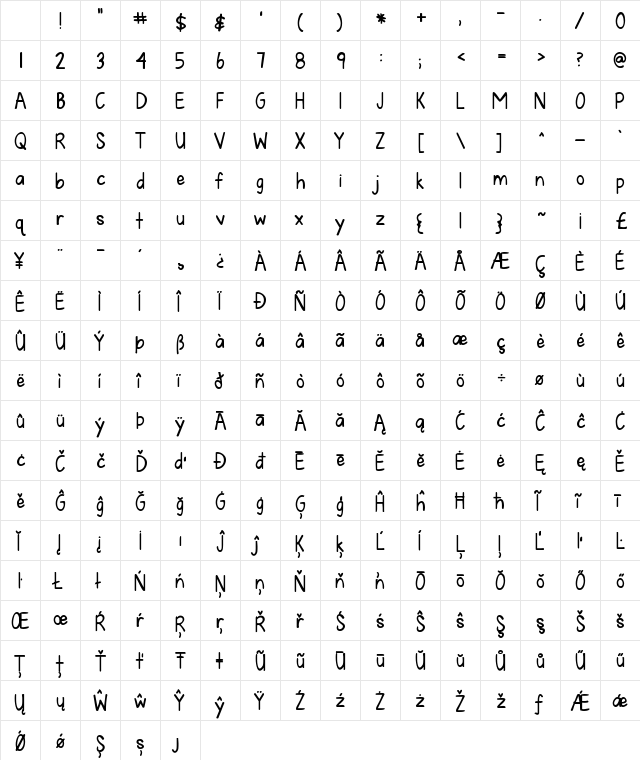
Complete KG Fall For You Bold glyph index. Displaying only characters natively supported by KG Fall For You Bold font.
KG Fall For You is a composed and adaptable typeface that performs quietly and consistently across a wide range of design contexts. Its bold stroke weight gives it real presence on the page.